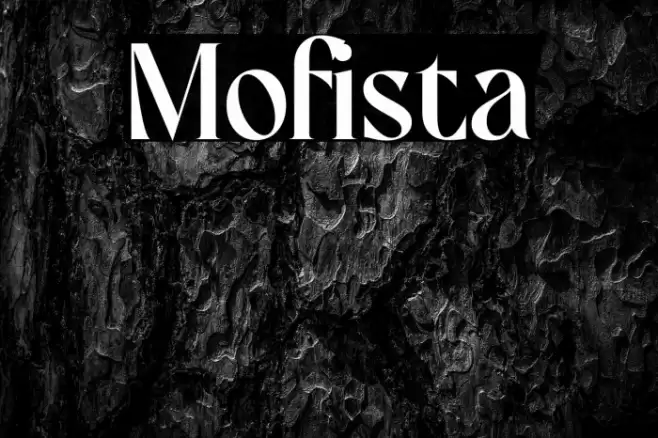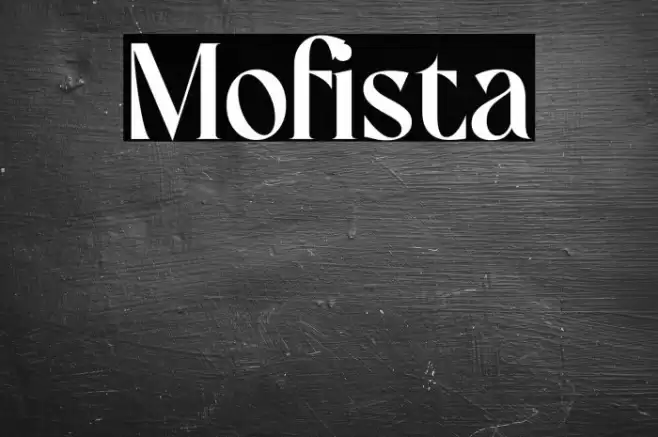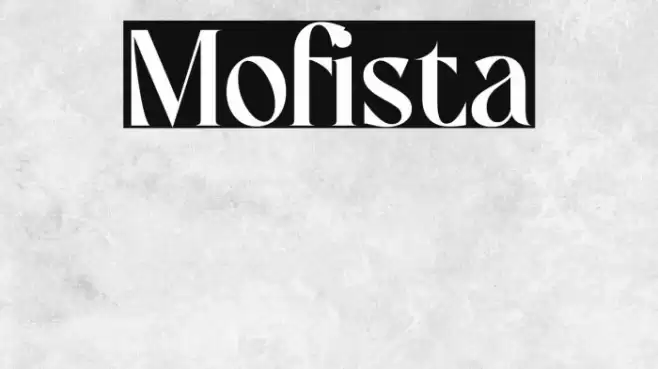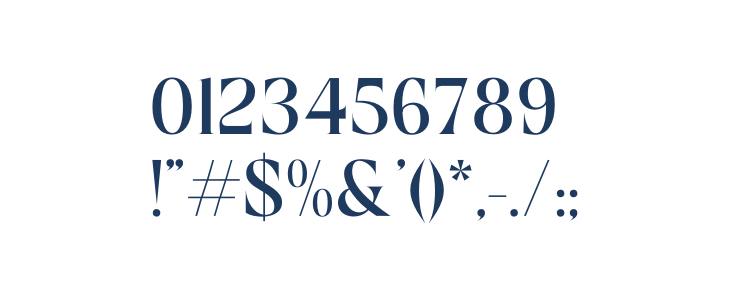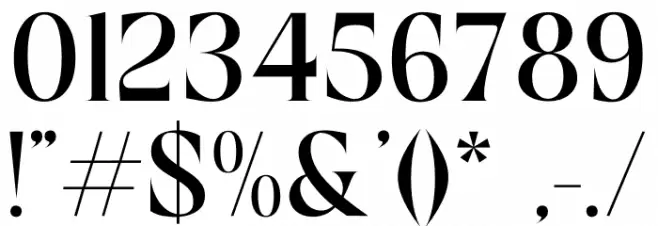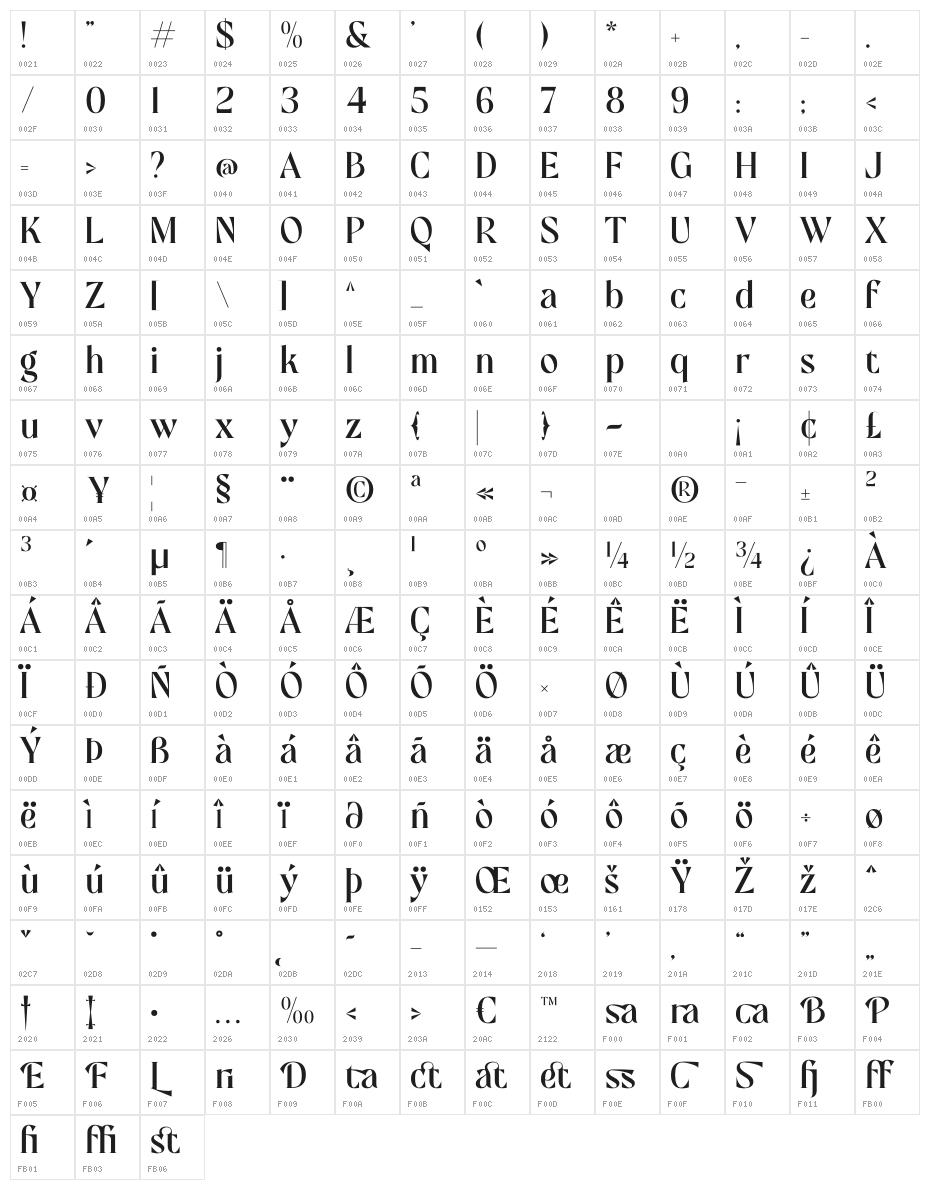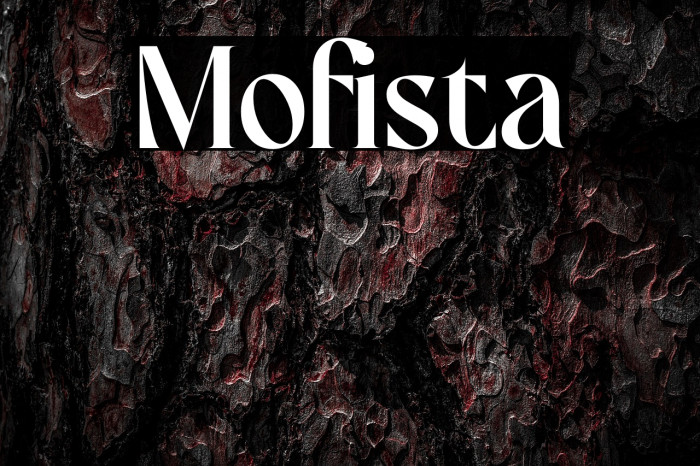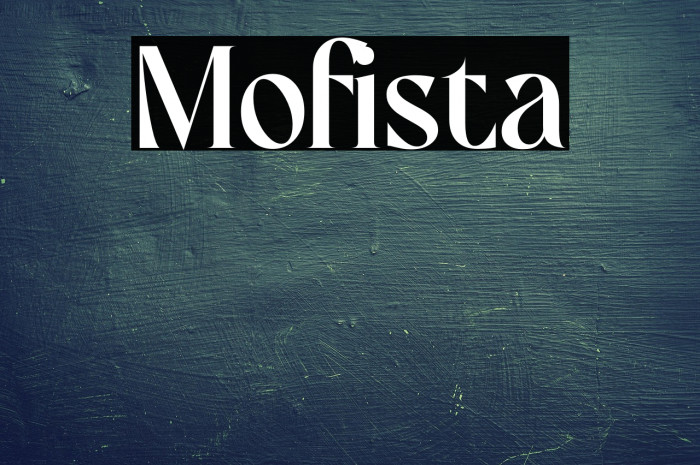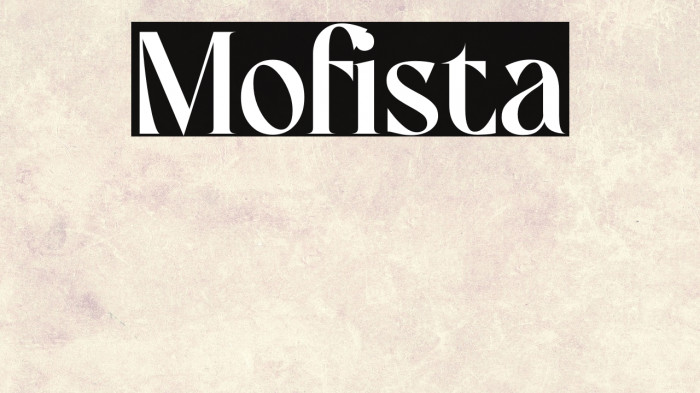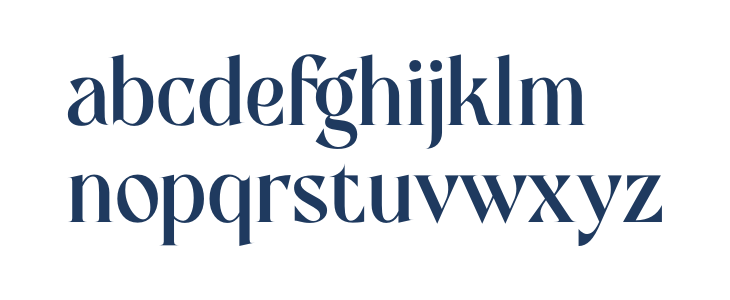
Mofista Font
Mofista Description
This font exhibits a bold and striking presence with its high contrast between thick and thin strokes, giving it a dramatic and elegant appearance. The serif style is pronounced, with sharp, pointed serifs that add a sense of sophistication and formality. The uppercase letters are tall and commanding, while the lowercase letters maintain a consistent style with a slightly more delicate touch. The numerals are equally bold, ensuring readability and impact. Special characters are designed with the same attention to detail, making them cohesive with the overall aesthetic. This font is well-suited for making a statement, whether in print or digital media.
A bold, high-contrast serif font with sharp serifs and dramatic strokes from Regular fonts.
- Proposed Projects: Ideal for luxury branding, editorial headlines, book covers, and high-end packaging.
- Overall Style: Classic